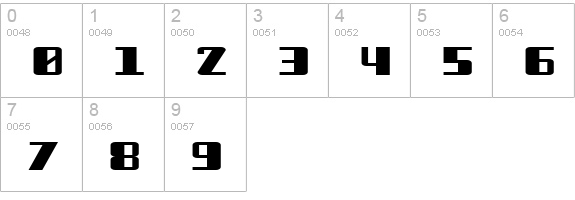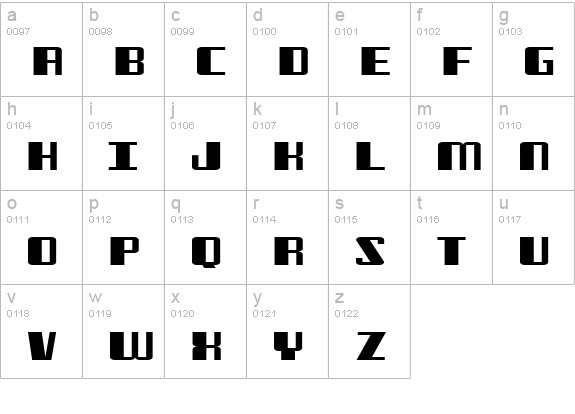
Freezer BTN Wide is a distinctive, extended-width variant in the Freezer typeface family \xE2\x80\x94 well suited to design and typography projects.
Freezer BTN Wide font is a modern and stylish typeface that exudes a sense of coolness and sophistication. Its clean lines and bold design make it perfect for a wide range of projects, from branding to packaging and beyond. With its wide characters and eye-catching appeal, Freezer BTN Wide font is sure to make your text stand out and grab attention. The best part? This fantastic font is available for free download at FontsMarket.com. So, you can easily add this versatile typeface to your collection without breaking the bank. Whether you're looking to add a touch of elegance to your designs or make a statement with your typography, Freezer BTN Wide font has got you covered. Download it today and unleash your creativity with this stunning typeface.